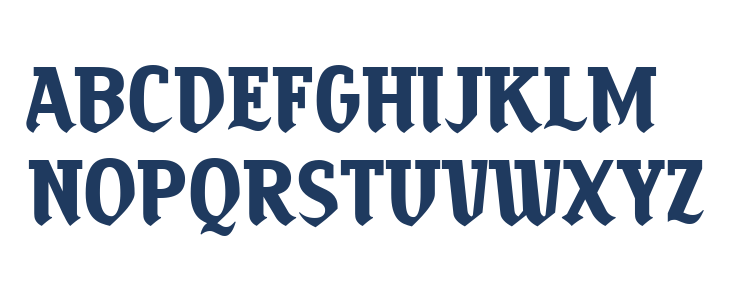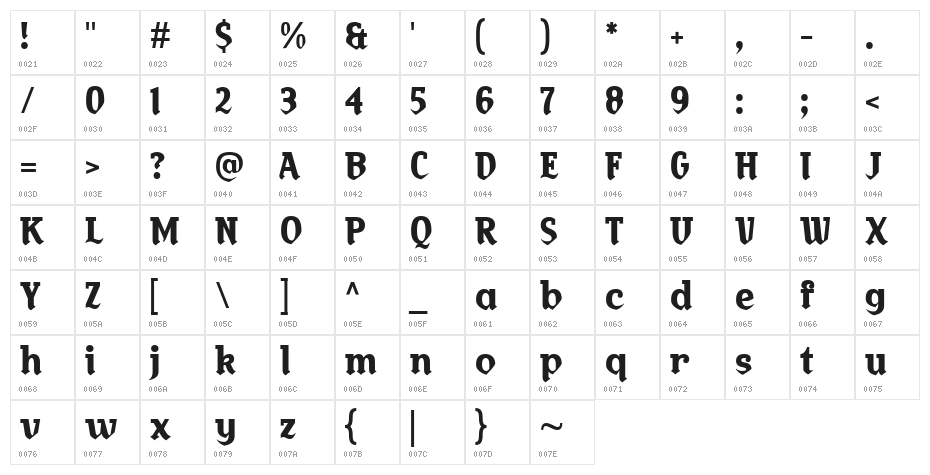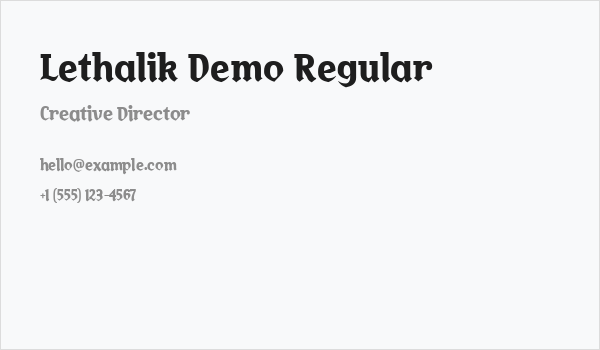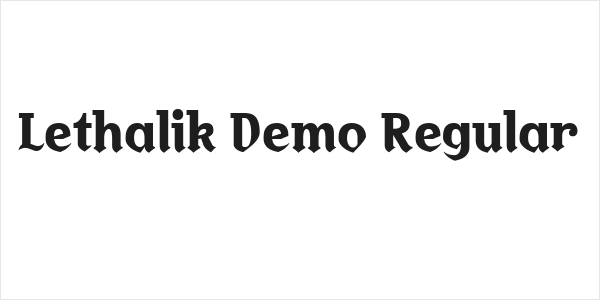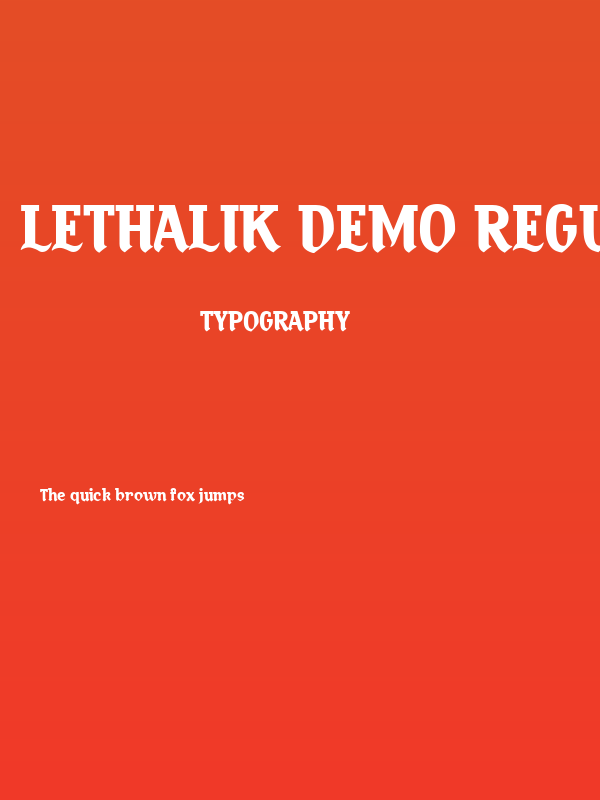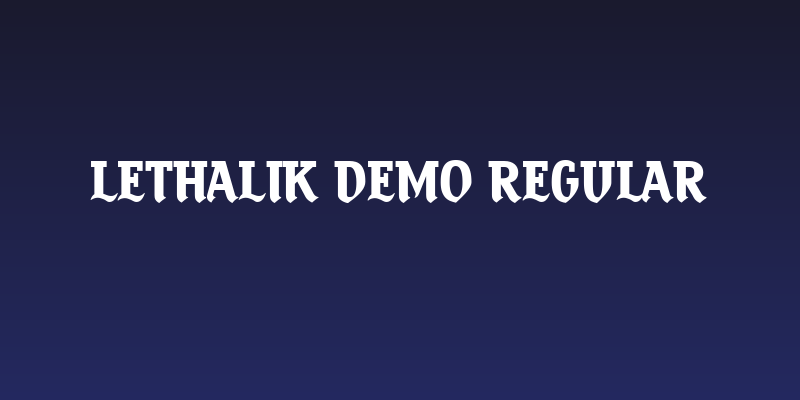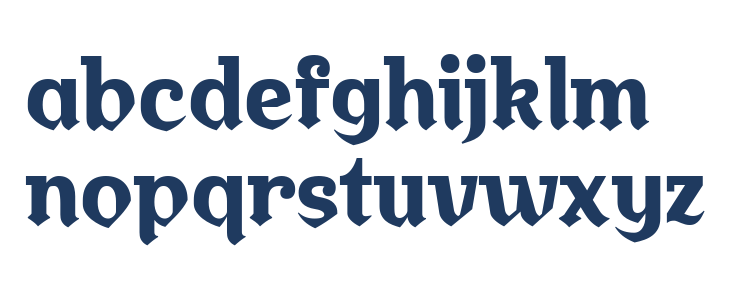
Lethalik Demo Regular Font
Lethalik Demo Regular Description
A bold, angular display typeface with sharp serifs and dramatic, high-contrast strokes, evoking a gothic or medieval aesthetic. The letterforms are wide and robust, with pronounced verticals and distinctive, pointed terminals.
| Overall Style | Decorative, Gothic, Vintage |
| Proposed Projects | Posters, video game titles, book covers, branding for heavy metal bands, event flyers, fantasy or horror themes. |